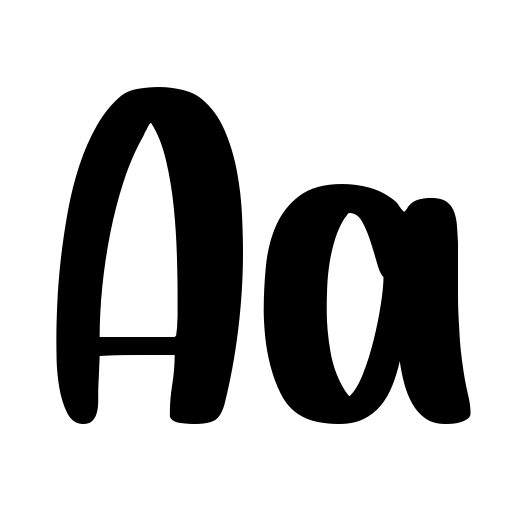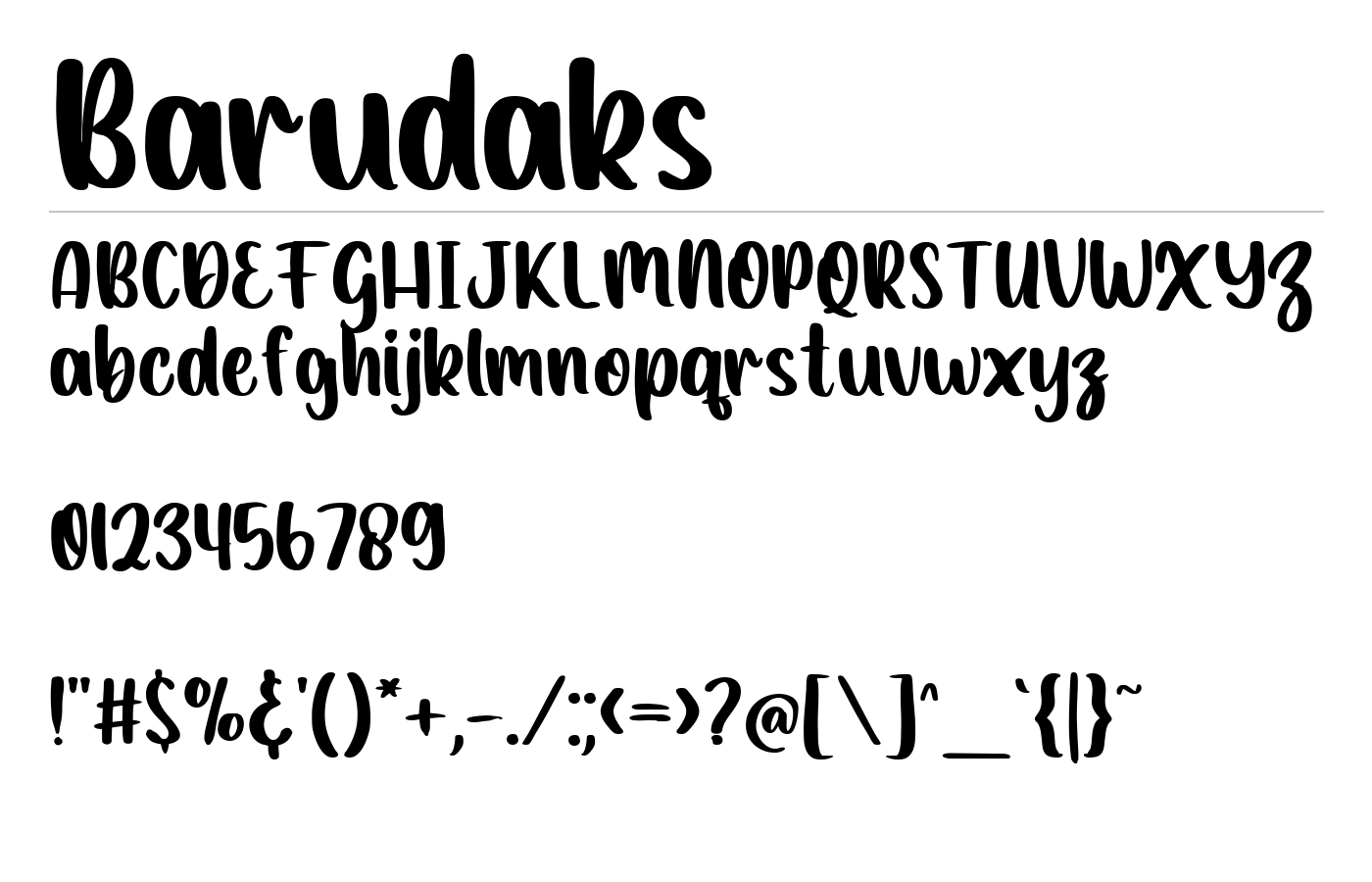
Barudaks is a playful and inviting script-style font with a bold, rounded feel that mimics natural handwritten lettering. Its thick strokes and lively character shapes make it perfect for casual branding, greeting cards, or social media graphics where a friendly and approachable tone is desired. This font shines in headlines and display uses, adding warmth and personality to any design.
Barudaks Font
About Barudaks Font
| Font family | Barudaks Font |
| Designer | vztype || Randy Ilhamsyah |